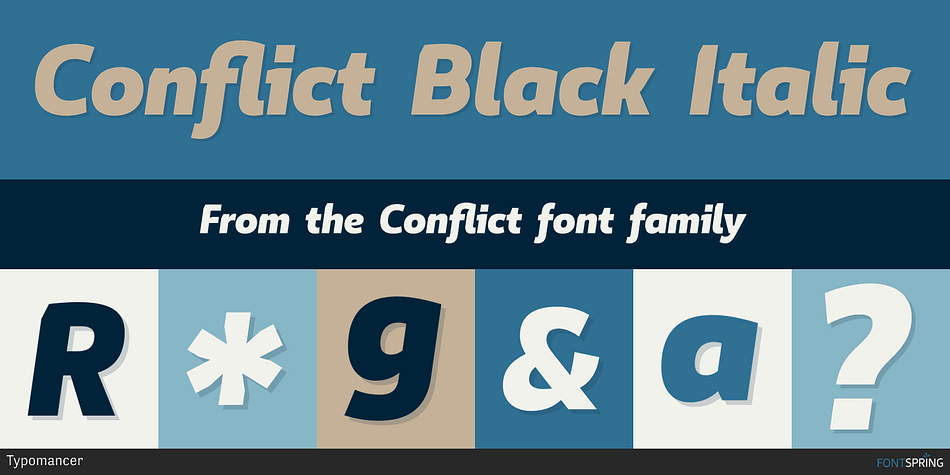
Conflict Black Italic
Conflict is a sans serif font family. This typeface has ten styles and was published by Typomancer.
‘Conflict’ is one of Typomancer’s early typeface that was released when the foundry started. After a few years, we’ve decided to give them a major overhaul, including more weights, more glyphs, brand new outlines, and revamped kerning.